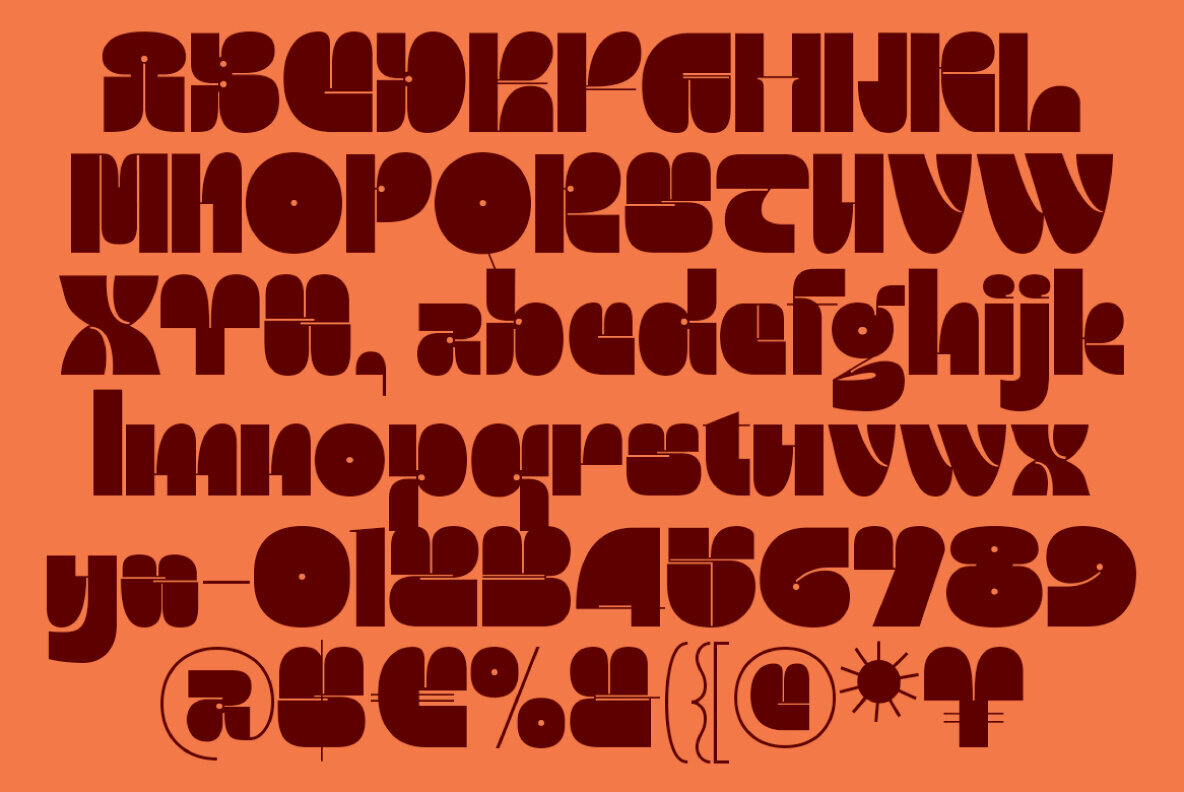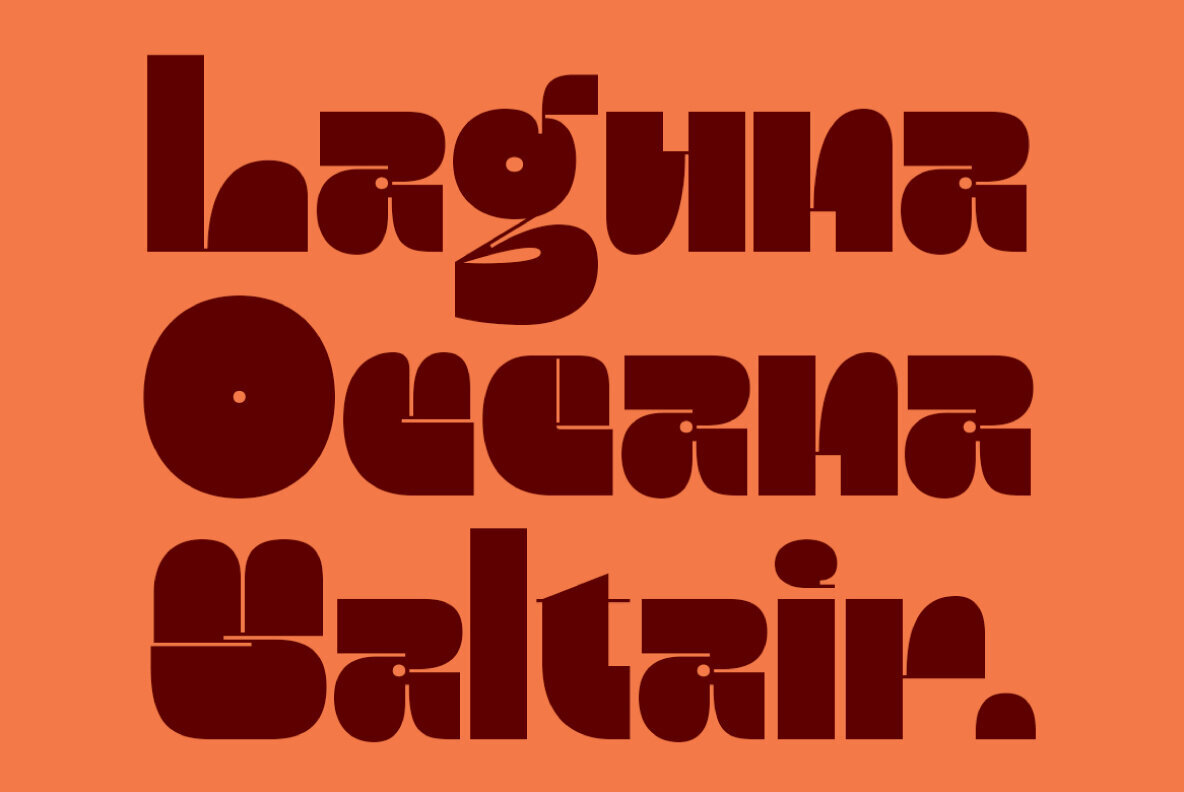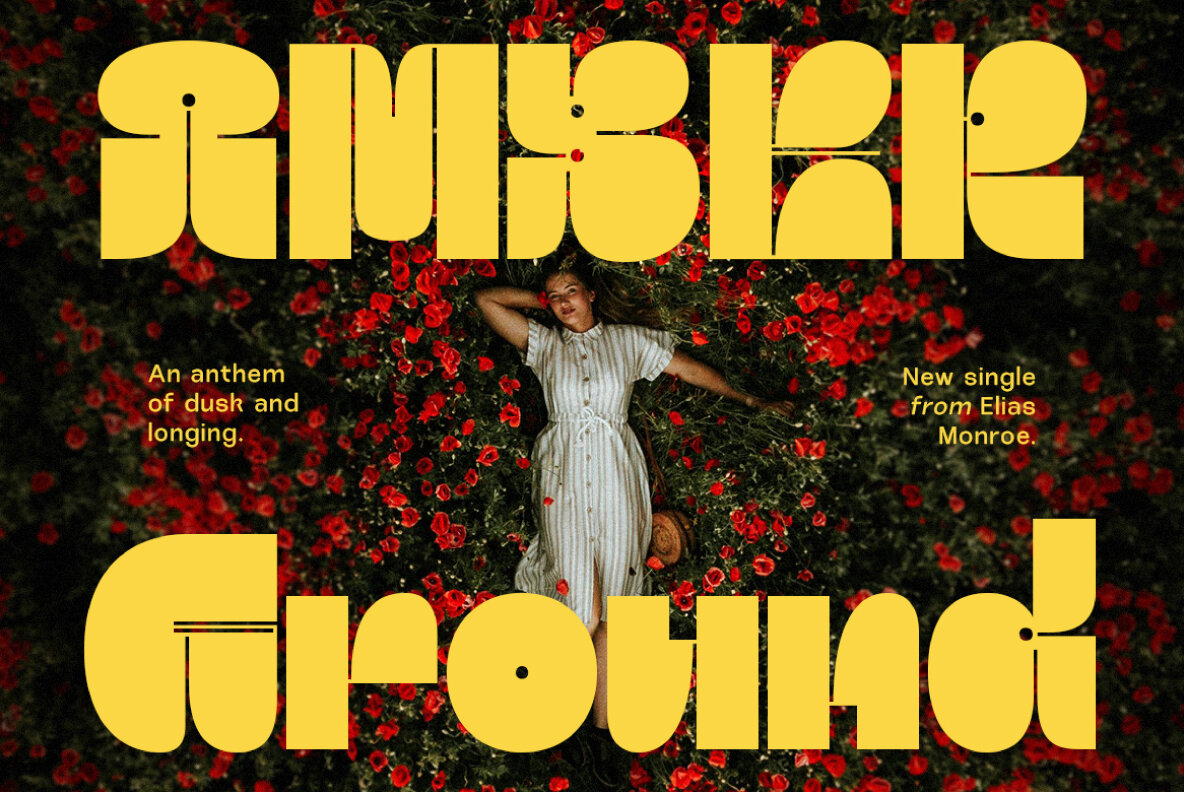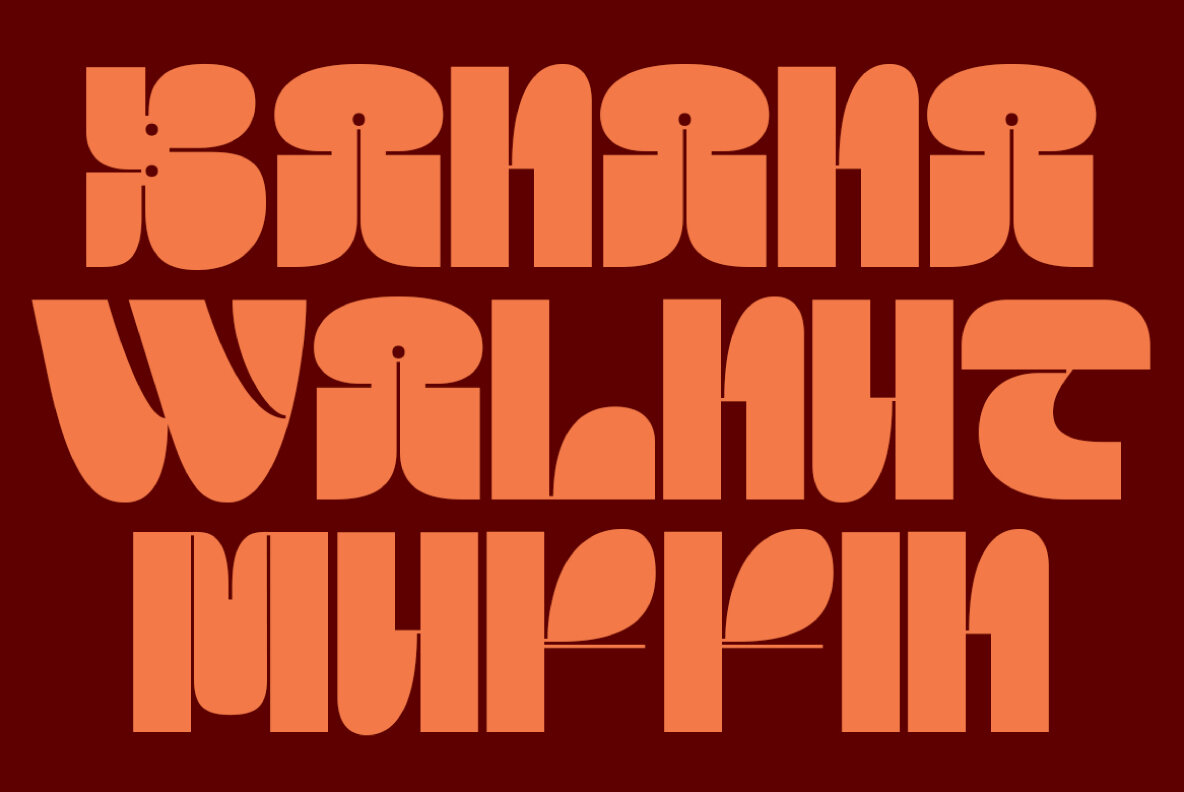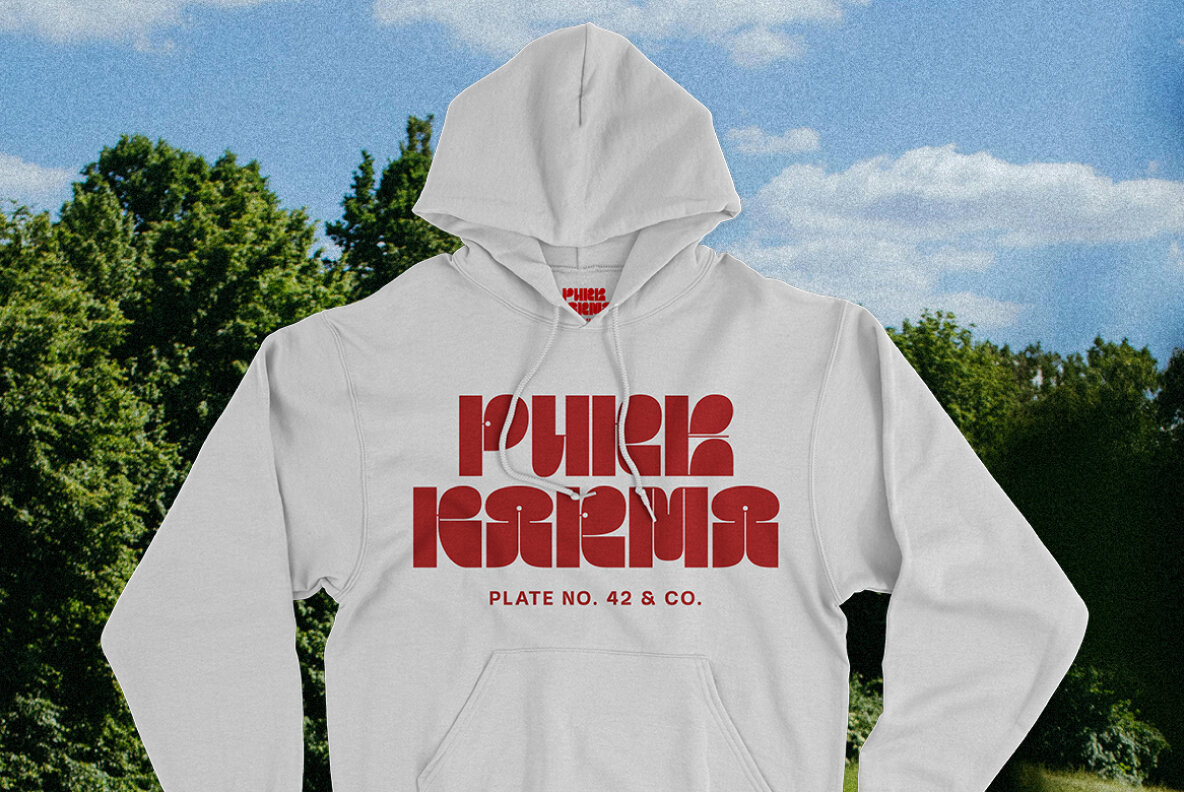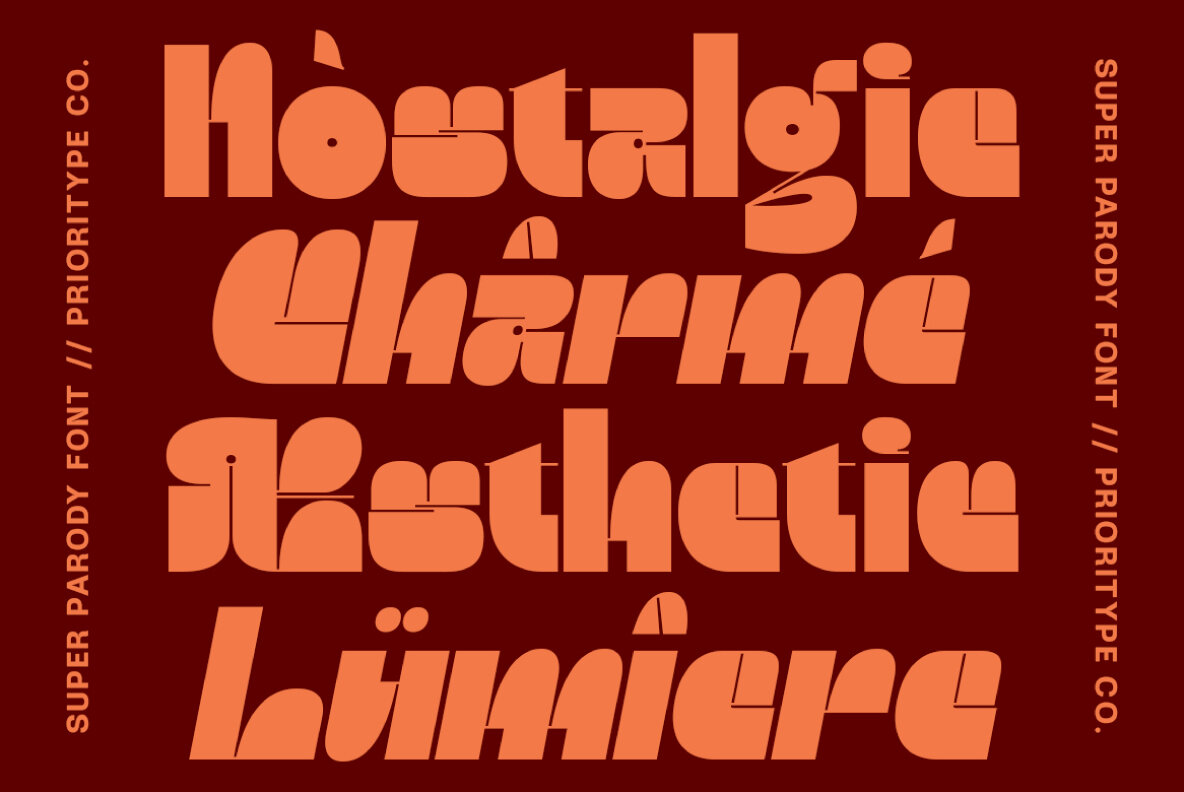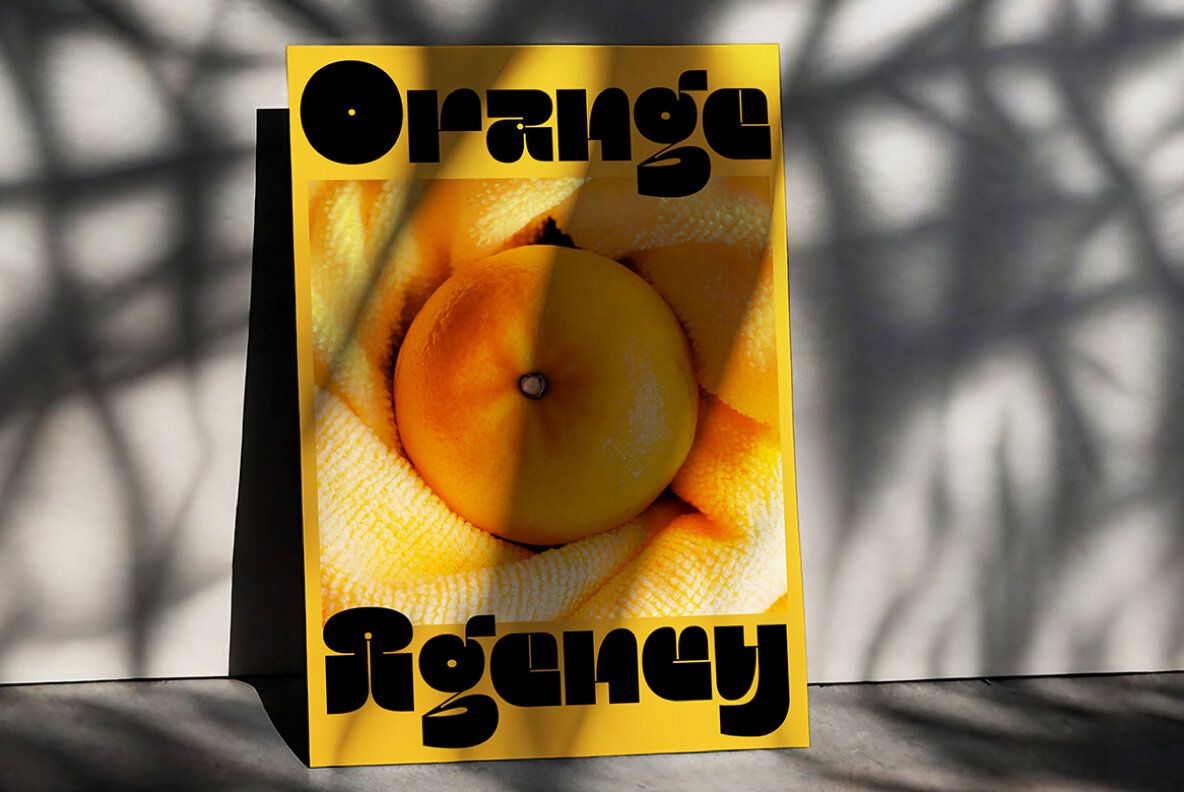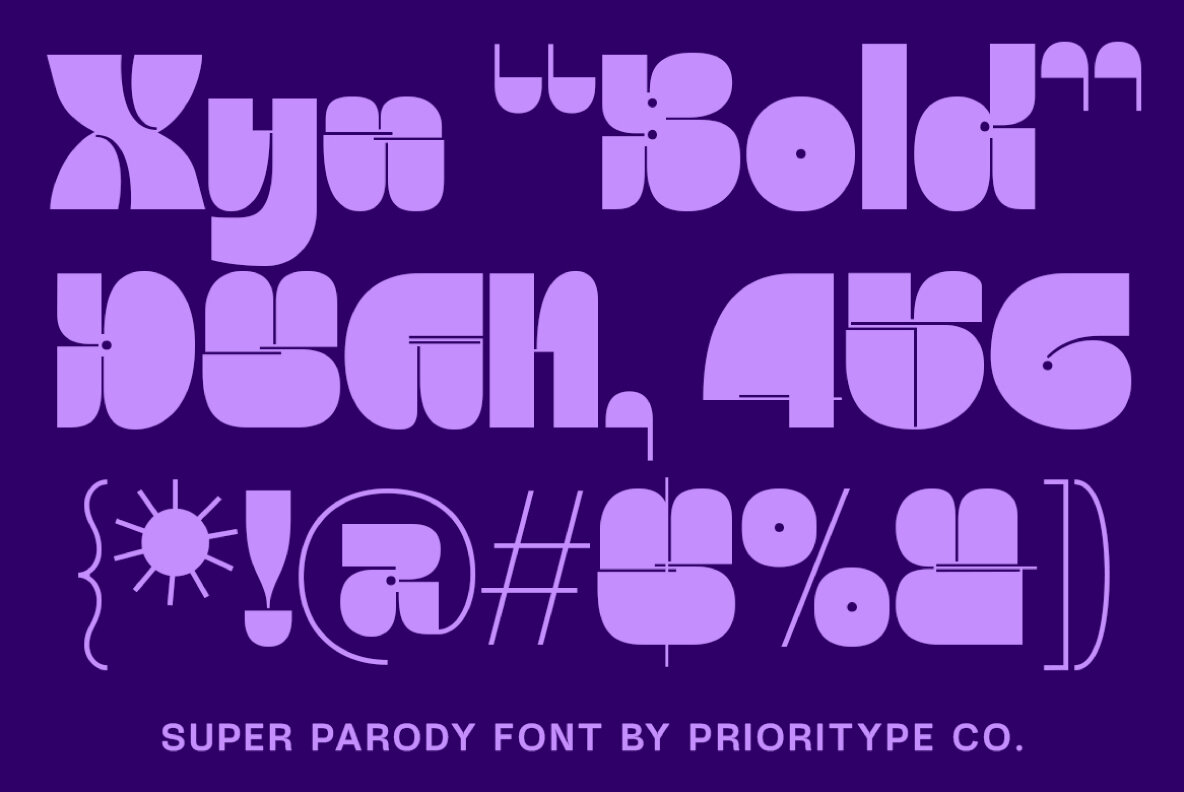
Super Parody Font
Super Parody is a bold display font that expertly fuses retro charm with modern flair. Available in two adaptable styles—Regular and Slant—it provides the perfect versatility for a multitude of creative endeavors. Its playful design and unique contrasts make it ideal for branding, posters, and eye-catching headlines. Whether your project leans towards vintage-inspired aesthetics or a contemporary vibe, Super Parody offers a distinctive, dynamic touch that stands out.
The font includes a comprehensive set of features: uppercase letters, lowercase letters, numerals, punctuation, and extensive multilingual support. This wide language range covers Afrikaans, Albanian, Basque, Danish, English, French, German, Italian, Portuguese, Spanish, Swedish, and many more, ensuring global applicability and reach for any project you're working on.